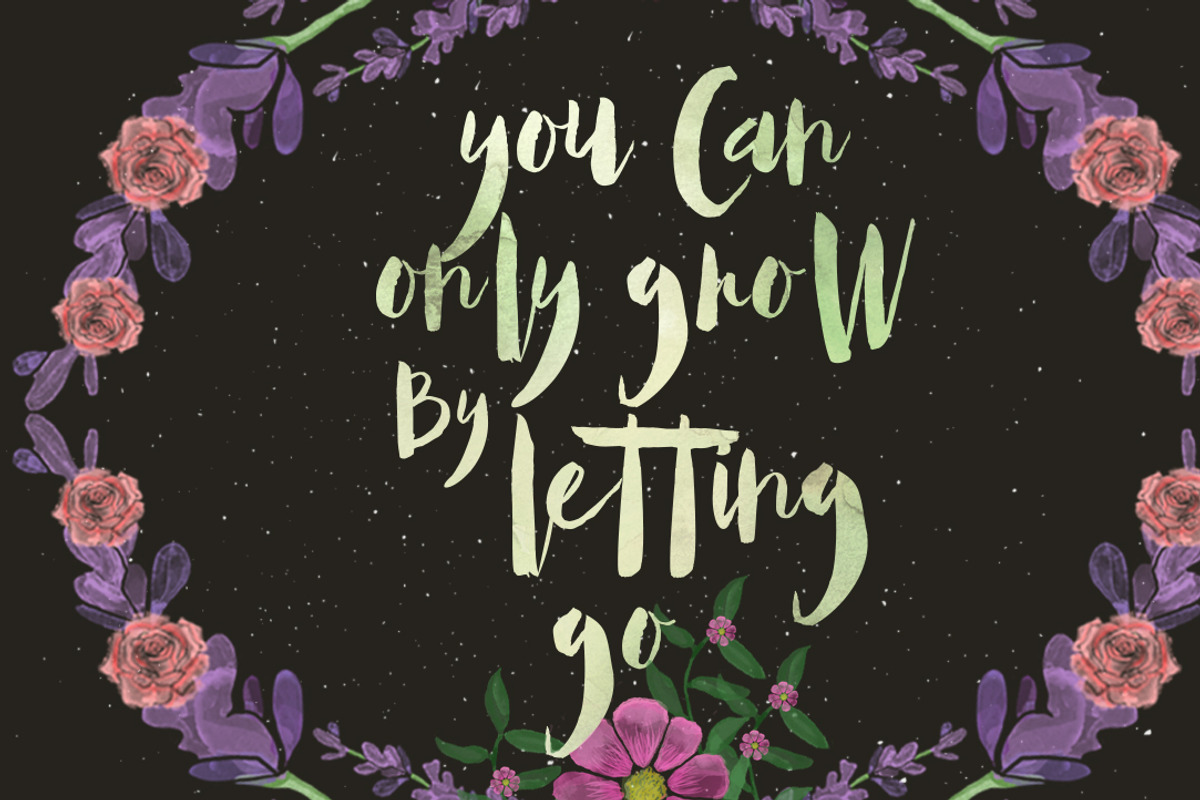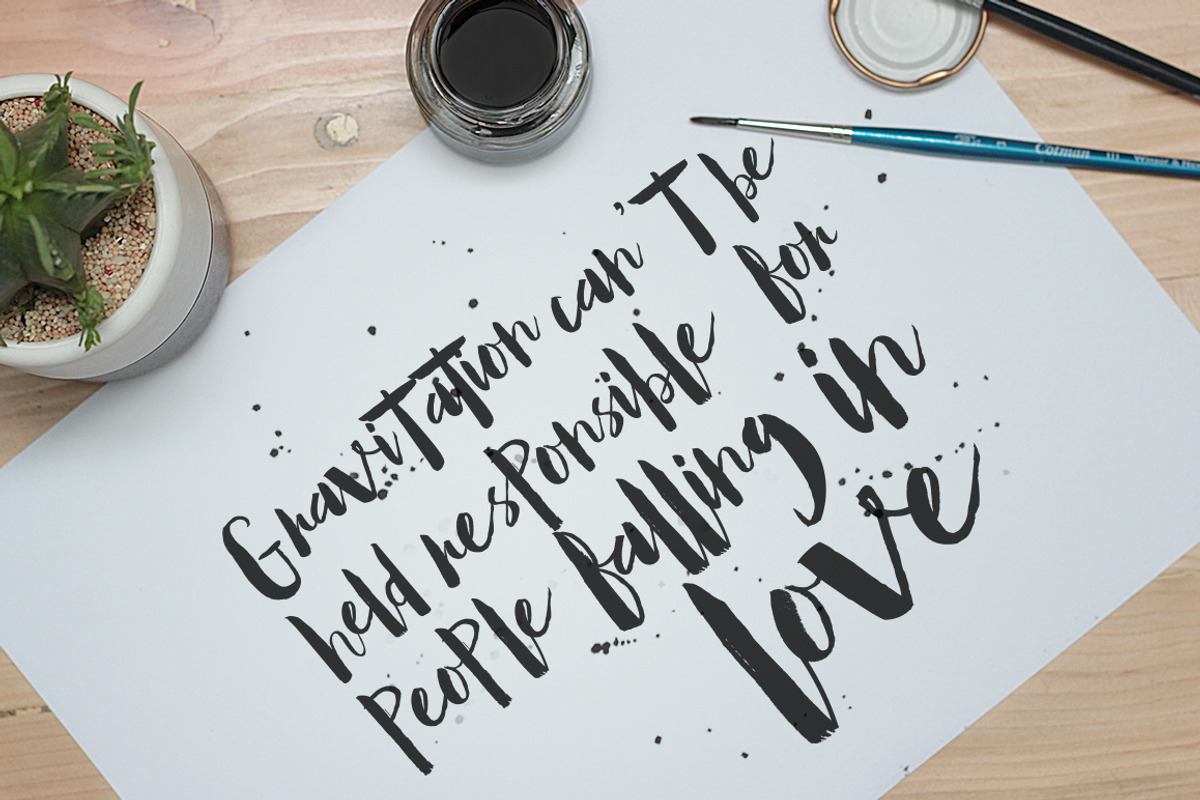
Mallow Typeface & EXTRA Mockup
Mallow Typeface & EXTRA Mockup by maghrib is a font selected for branding, posters, packaging, typography.
Why Mallow Typeface & EXTRA Mockup is worth a look
Mallow Typeface & EXTRA Mockup by maghrib fits naturally into Branding, posters, packaging, typography.